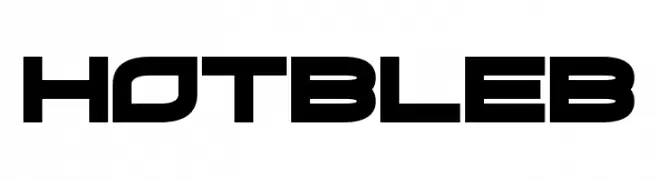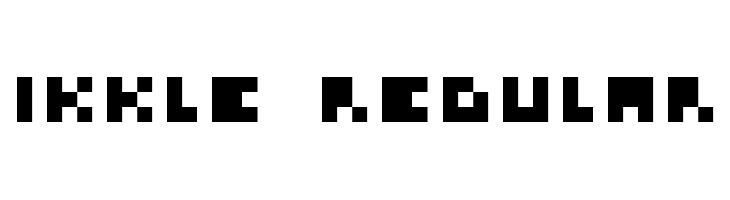
( Chequered Ink - chequered.ink/ )
A bold, futuristic font with a geometric and modern design.
( Chequered Ink - chequered.ink/ )
A modern, geometric font with tall, narrow characters and consistent stroke width.
( Cheryl Killian - www.whimsicalinklings.com )
A playful, dotted font with a whimsical, hand-drawn style.
( 7NTypes - Situjuh Nazara - 7ntypes.com )
A playful and whimsical font with curly, decorative elements.
( Andres Aarik - www.behance.net/-nc- )
A bold, angular font with a futuristic and dynamic style.
( Chequered Ink - chequered.ink/ )
A bold, geometric font with a futuristic and edgy design.
( Anke van der Meer - ankepanke.nl )
A playful, handwritten font with smooth, rounded letterforms.
( Caveras - Cliff Modes - caveras.net )
A pixelated, monospaced font with a retro digital style.
( Brixdee - jack-oatley.com/ )
A pixelated, blocky font with a retro digital aesthetic.
( Brixdee - jack-oatley.com/ )
A bold, geometric font with a pixelated, digital aesthetic.